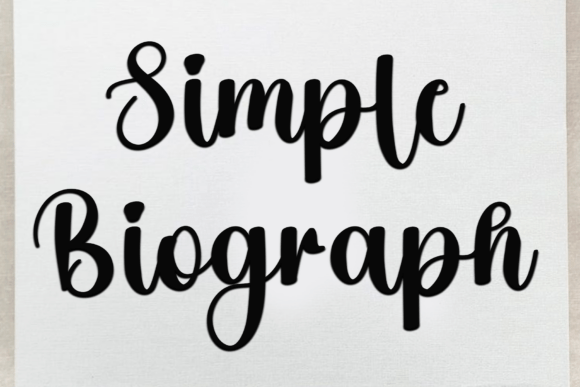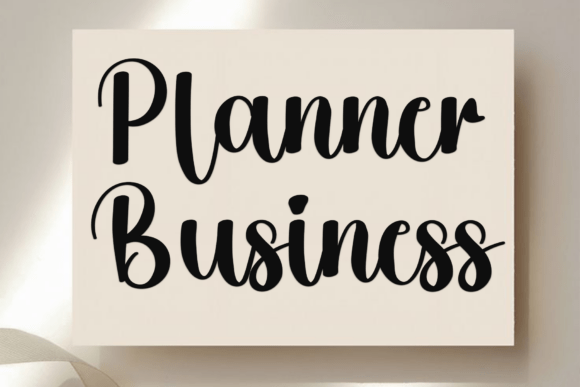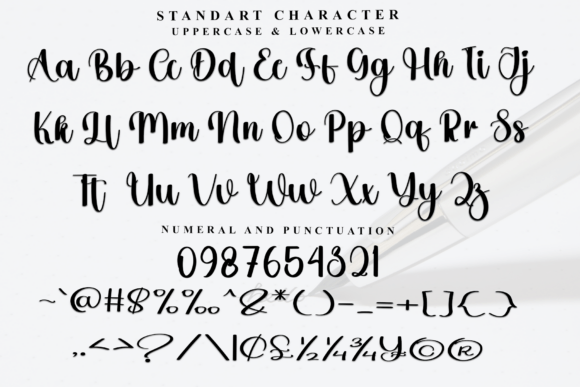
Introduction to Football Yesterday Font
Football Yesterday is a beautiful and eye-catching font designed with a soft, unique touch.
Its distinctive strokes give it a special character, making it meaningful and versatile for future use With various characters, it’s perfect for design projects, crafts, and other creative works.